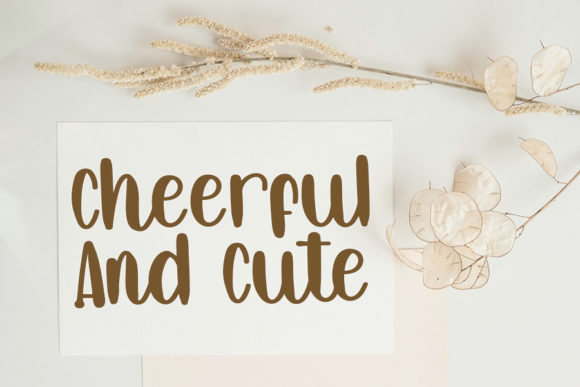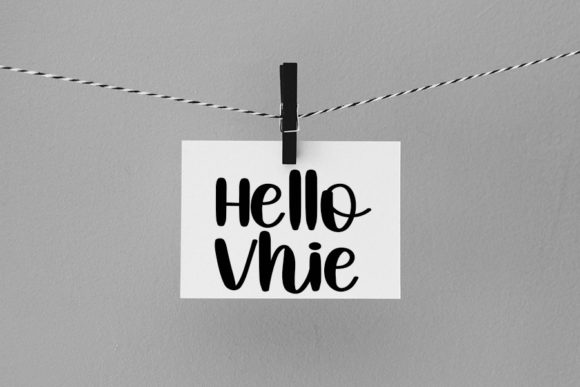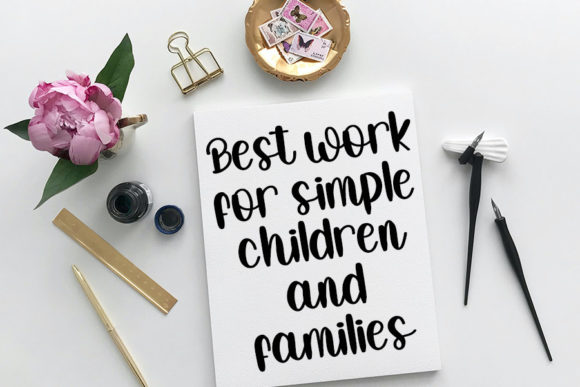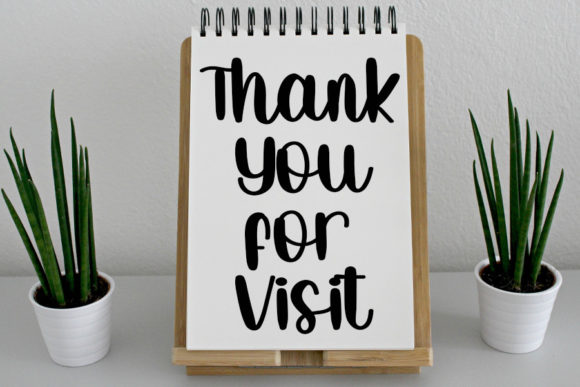
Introduction to Babyeyes Font
Remember the excitement of brainstorming a new creative project? You’ve got an idea in your head, a vision to bring to life, but then you’re stuck on the perfect design element. That’s where a fantastic font comes in – a game-changer that elevates your entire project. For designers, finding the right font can be a challenge, but with the Babyeyes Font, you’ll be well on your way to creating something truly special.
This charming handwritten font is a treasure trove of creative possibilities, offering a natural and unique style that’s sure to capture attention. Whether you’re working on a design project, creating a digital asset, or simply experimenting with a new idea, Babyeyes Font is the perfect companion. Its high-quality design and versatility make it a valuable resource for any creative endeavor.
Key Features of Babyeyes Font
- Unique, whimsical design perfect for creative projects and illustrations
- High-quality design with clear, crisp lines and delicate details
- Includes multiple font styles and weights for versatility in design applications
- Perfect for use in digital design, including web design, graphic design, and print design
Honest Review: Babyeyes Font
- Unique and playful aesthetic that adds a touch of whimsy to any design
- Limited character set, which may not be suitable for longer texts or professional documents
- Not suitable for formal or corporate designs due to its playful nature
Overall, I’m quite impressed with the Babyeyes Font. It’s a great design resource for creative projects that require a touch of whimsy and playfulness. While it has its limitations, it’s definitely worth considering for your next design project.
Tips for Getting the Most Out of Babyeyes Font
To get the most out of the Babyeyes Font, consider using it in combination with other design resources, such as graphics and images. This will help to create a cohesive and visually appealing design. Additionally, be sure to use the font in a way that is consistent with the overall aesthetic of your project.
The Babyeyes Font is a versatile design resource that can be used in a wide range of applications, including logos, business cards, and marketing materials. Its transparent background and high-quality design make it a great choice for projects where a clean and modern look is desired.